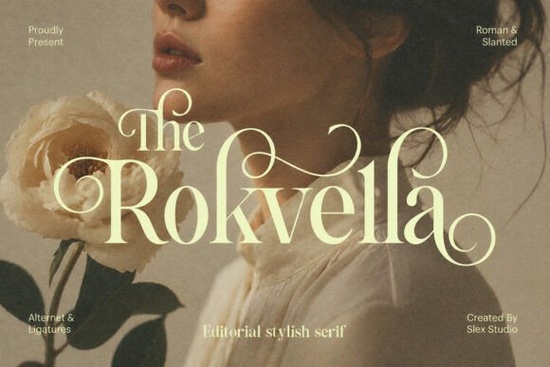
If you're looking for a serif font that feels both timeless and quietly confident something that works as well on a wedding invitation as it does on a small-batch skincare label you’ll likely find The Rokvella Font fits naturally into your workflow. It’s not flashy or loud, but it carries presence: delicate strokes, subtle curves, and thoughtful details like flowing swashes and elegant ligatures that give text a hand-crafted, high-end rhythm.
What kind of projects is Rokvella best suited for?
Rokvella shines where tone and texture matter more than sheer readability at a distance. Think: boutique branding, artisanal packaging, editorial layouts in print or digital magazines, and anything with a soft, refined aesthetic. It’s especially popular among small businesses launching luxury candles, natural beauty lines, or curated stationery and among crafters who sell printable wedding suites on platforms like Etsy.
Because it includes both Roman and slanted (italic) styles, you can build visual hierarchy without switching fonts. The slanted version isn’t just a lean it’s designed to complement the roman with matching stroke weight and curve tension, so headings and pull quotes feel intentional, not tacked on.
How does it compare to other elegant serif fonts?
Unlike some classic serifs that lean heavily into vintage formality or others that chase modern minimalism Rokvella balances both. It has enough structure to feel grounded, but enough flourish to avoid feeling stiff. If you’ve used Grandeur Elegant Classic Serif Font, you’ll notice Rokvella has a lighter touch and more lyrical movement. Compared to Serifluxe Font, it’s less geometric and more organic in its curves. And while Spooky Witchy Font leans into dramatic contrast and gothic mood, Rokvella keeps things graceful and warm.
It also stands apart from bundles like the Exclusive Serif Retro Bundle, which offers variety across eras and moods. Rokvella is more focused a single voice, finely tuned for quiet sophistication. That makes it easier to use consistently, especially if you’re designing your own brand assets or building a cohesive product line.
Does it work for digital use or just print?
Yes, but with nuance. Rokvella was drawn with print-first intention its fine hairlines and delicate swashes look stunning at 12 pt and up in PDFs, letterpress proofs, or printed posters. On screens, it performs best in larger display sizes (e.g., headlines, hero text, social media banners), particularly on high-resolution devices. For body copy on websites or apps, pair it with a clean, highly legible sans-serif like Inter or Lato for balance.
Most users report smooth rendering in design tools like Adobe Illustrator, Affinity Designer, and Canva (when uploaded as a custom font). Just remember to test how swashes behave in your chosen layout software they’re meant to be toggled on selectively, not applied globally.
Who tends to get the most value from this font?
- Print-on-demand sellers using platforms like Printful or Gelato especially those offering premium greeting cards, art prints, or framed quotes.
- Small business owners creating their own packaging labels, product tags, or Shopify store headers without hiring a designer.
- Crafters and hobbyists making wedding invitations, baby announcements, or seasonal digital planners where personalization and elegance matter.
- Freelance designers building brand identities for clients in beauty, wellness, or lifestyle niches who want something distinctive but not overly trendy.
If you already own Serifluxe Font or have explored Grandeur, Rokvella won’t replace them but it adds a different emotional register: softer, more intimate, and subtly expressive. It’s the kind of typeface you reach for when you want words to feel considered, not just seen.
One practical note: Rokvella includes OpenType features like discretionary ligatures and swash alternates. You don’t need advanced typography knowledge to use them most design apps let you toggle these on via the glyph panel or character menu. Start with just two or three swashes in a headline to see how they change the flow.
Quick checklist before you use Rokvella in your next project:
- Confirm your software supports OpenType features (most do but verify if you’re using older versions).
- Test swashes at your intended size some may need slight kerning adjustments.
- Pair it intentionally: try it with a neutral sans-serif for contrast, or a muted serif like Playfair Display for layered elegance.
- Preview how it looks printed not just on screen especially if you’re ordering physical samples.
- Save a style guide snippet showing your preferred roman + slanted combo, plus one swash example, so you (or a collaborator) can reuse it consistently.